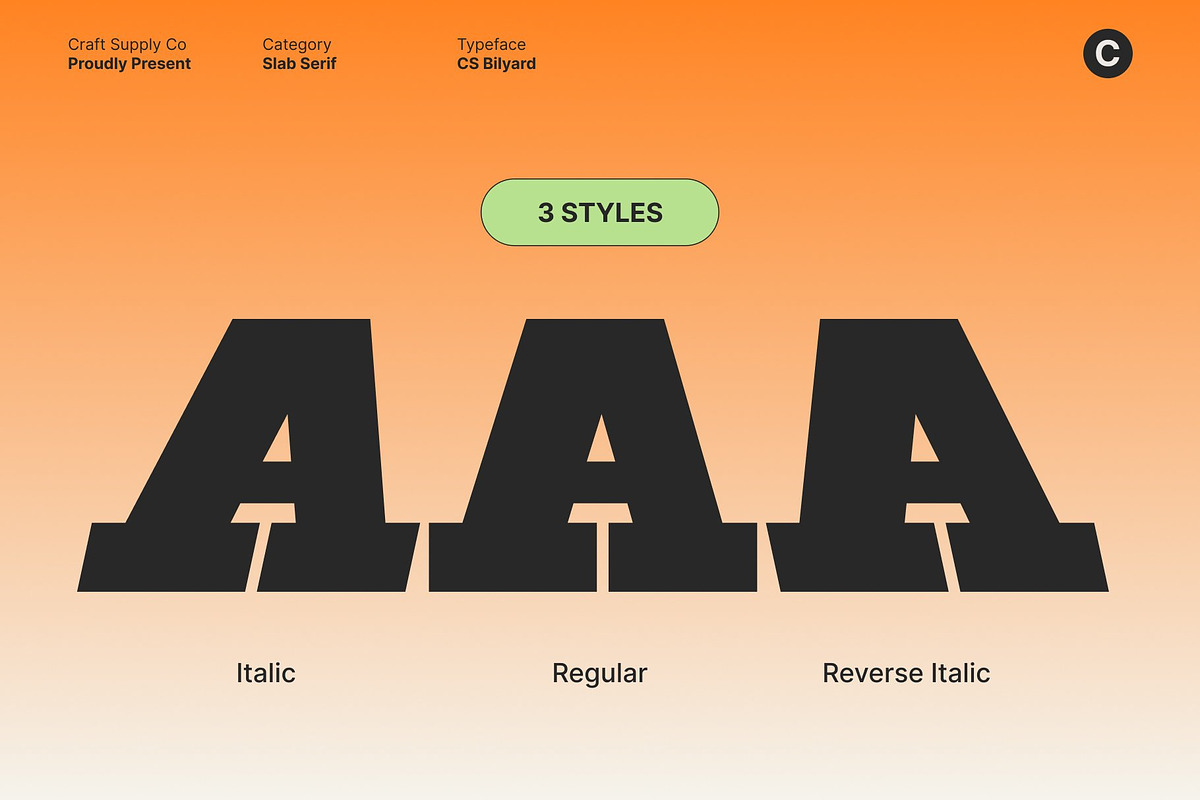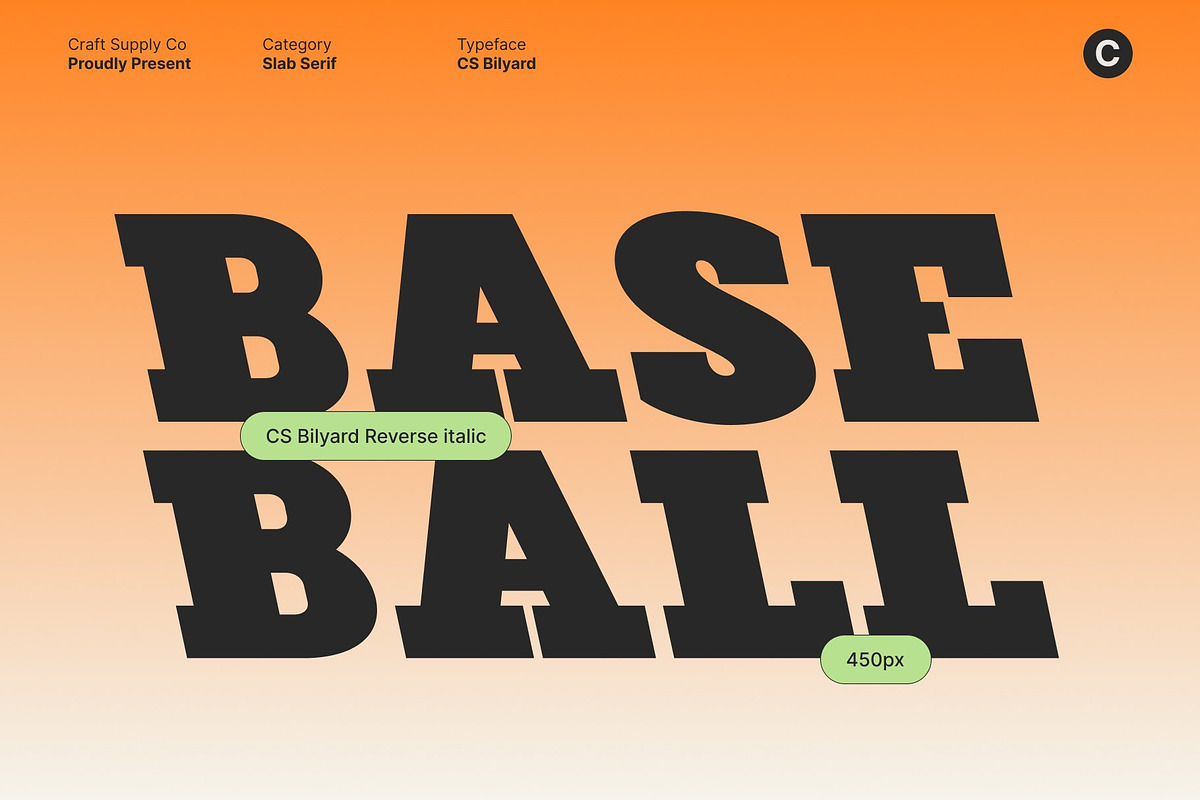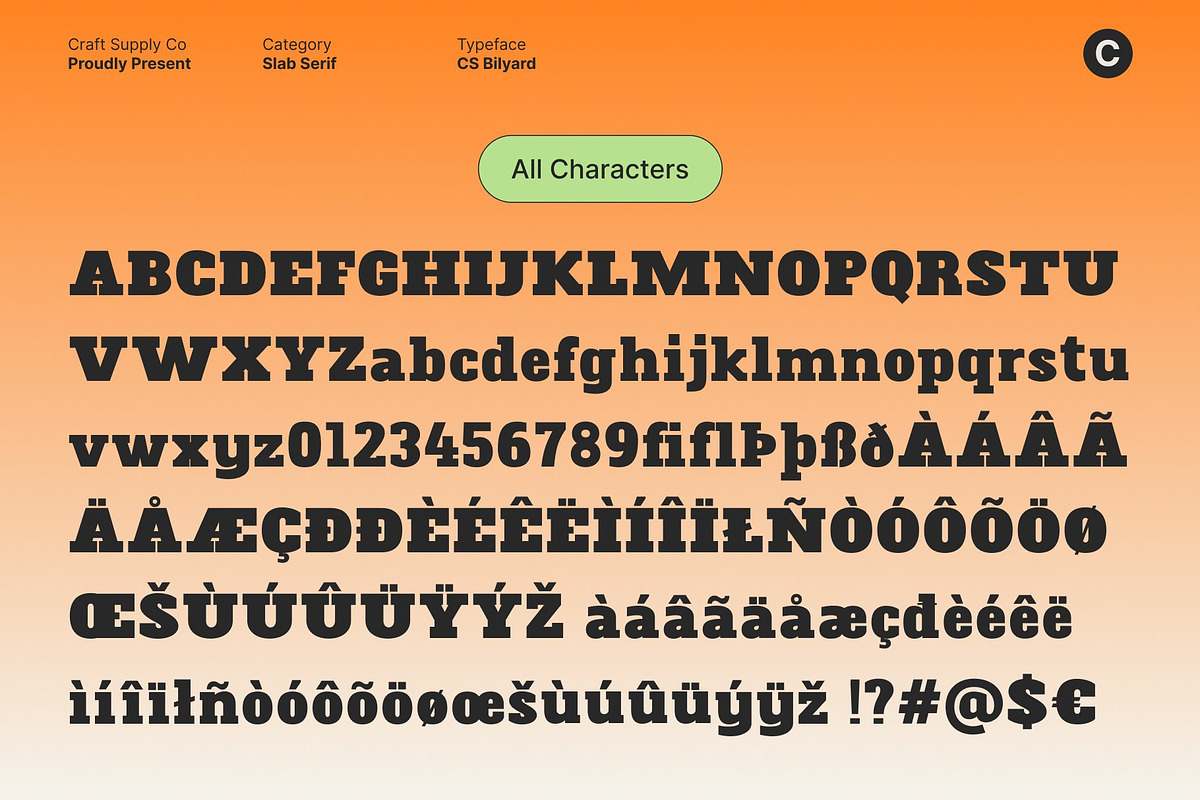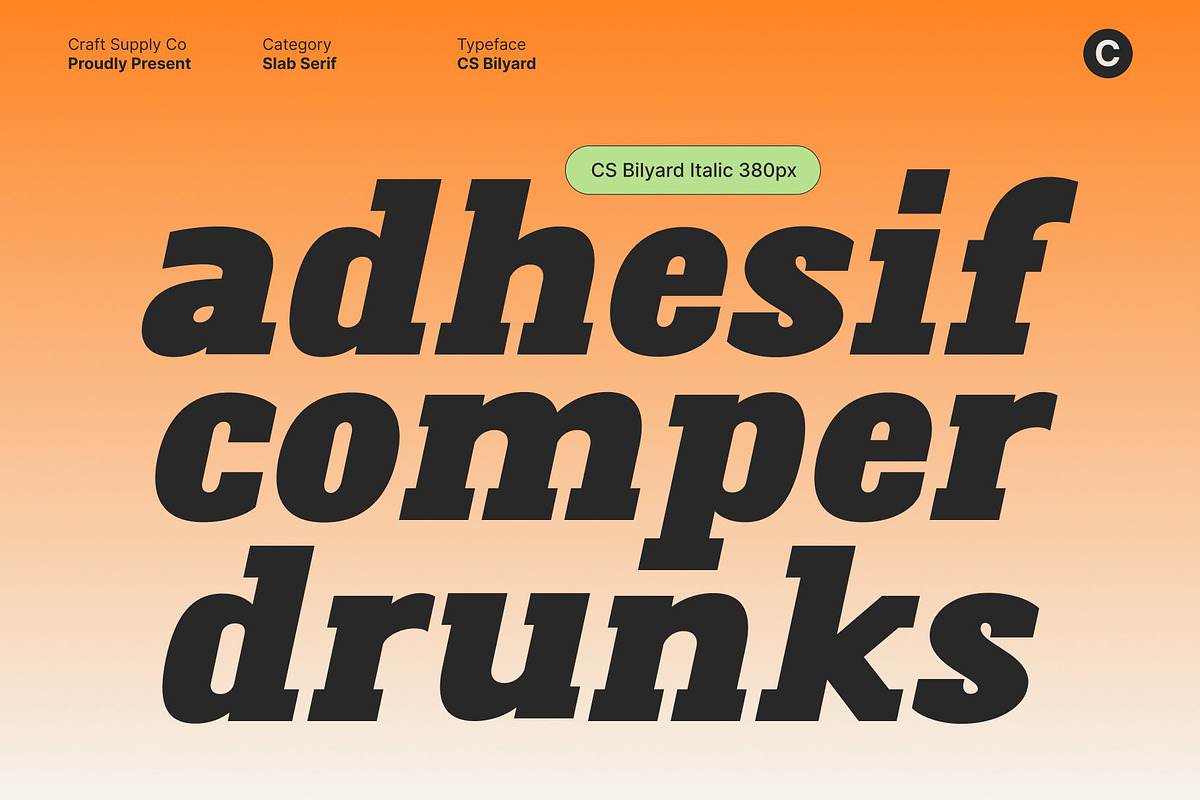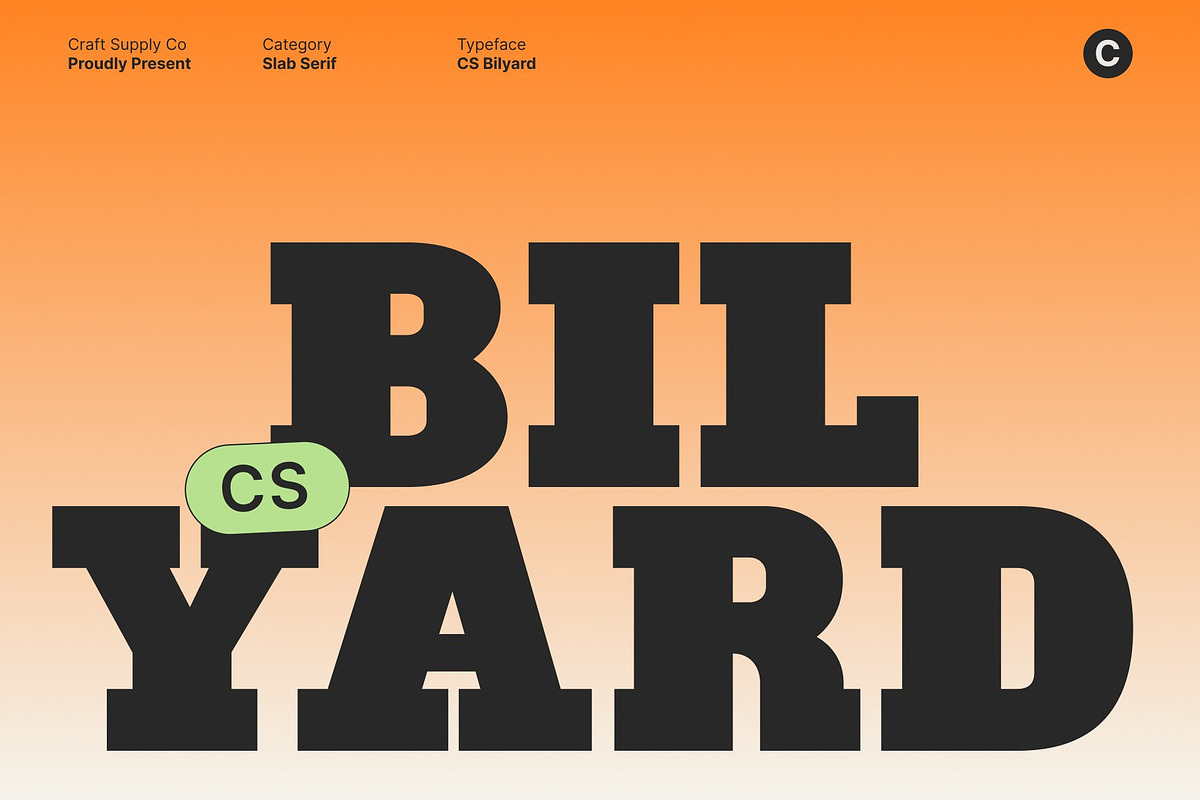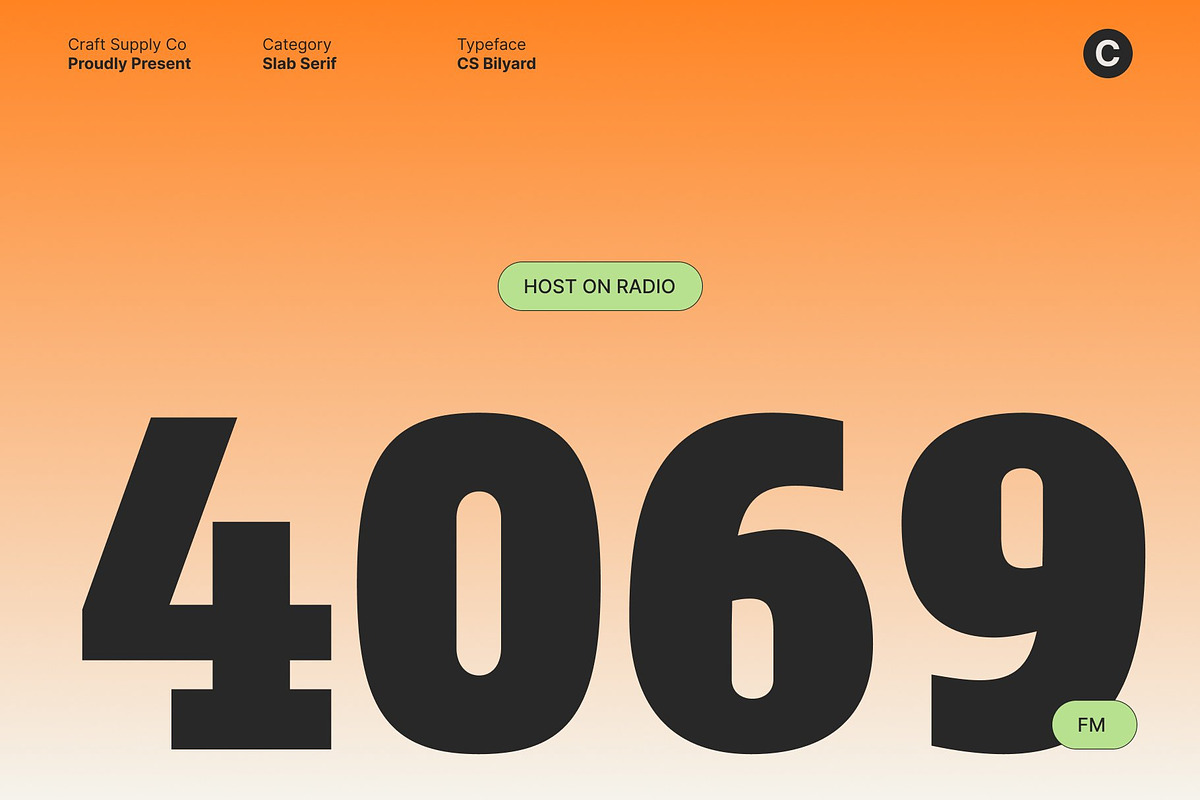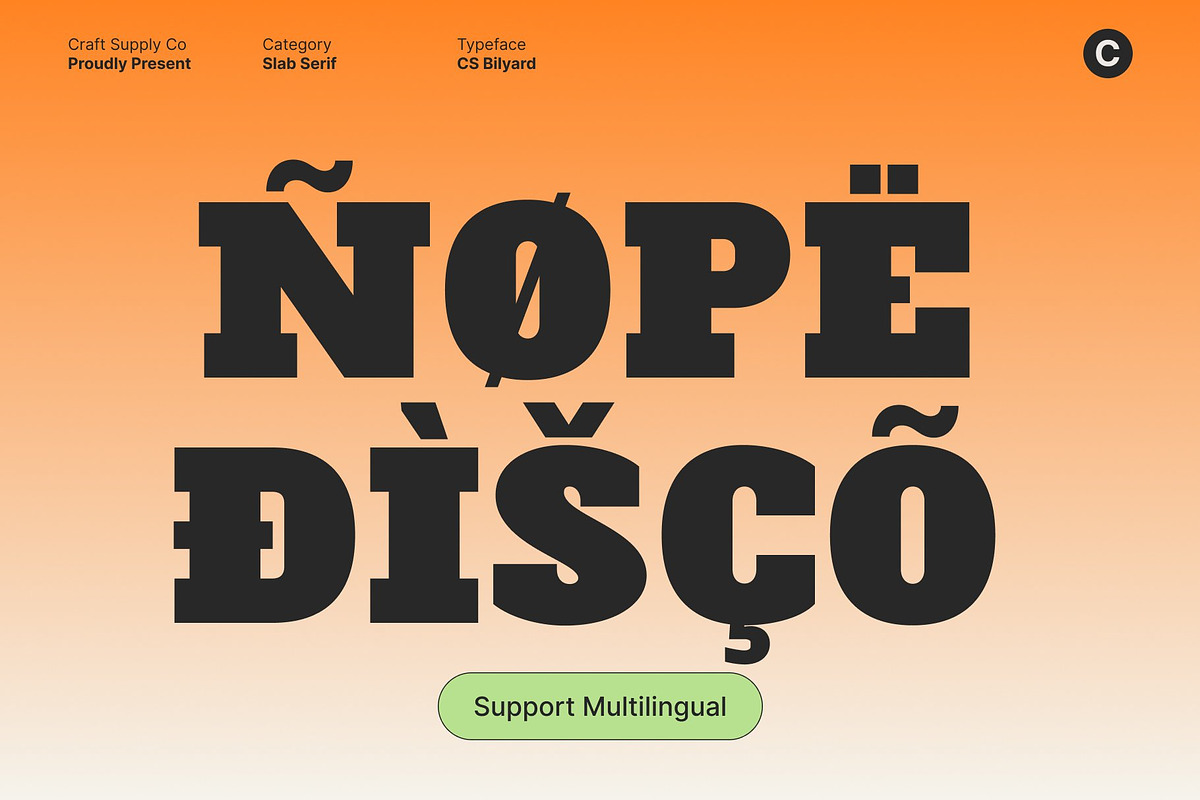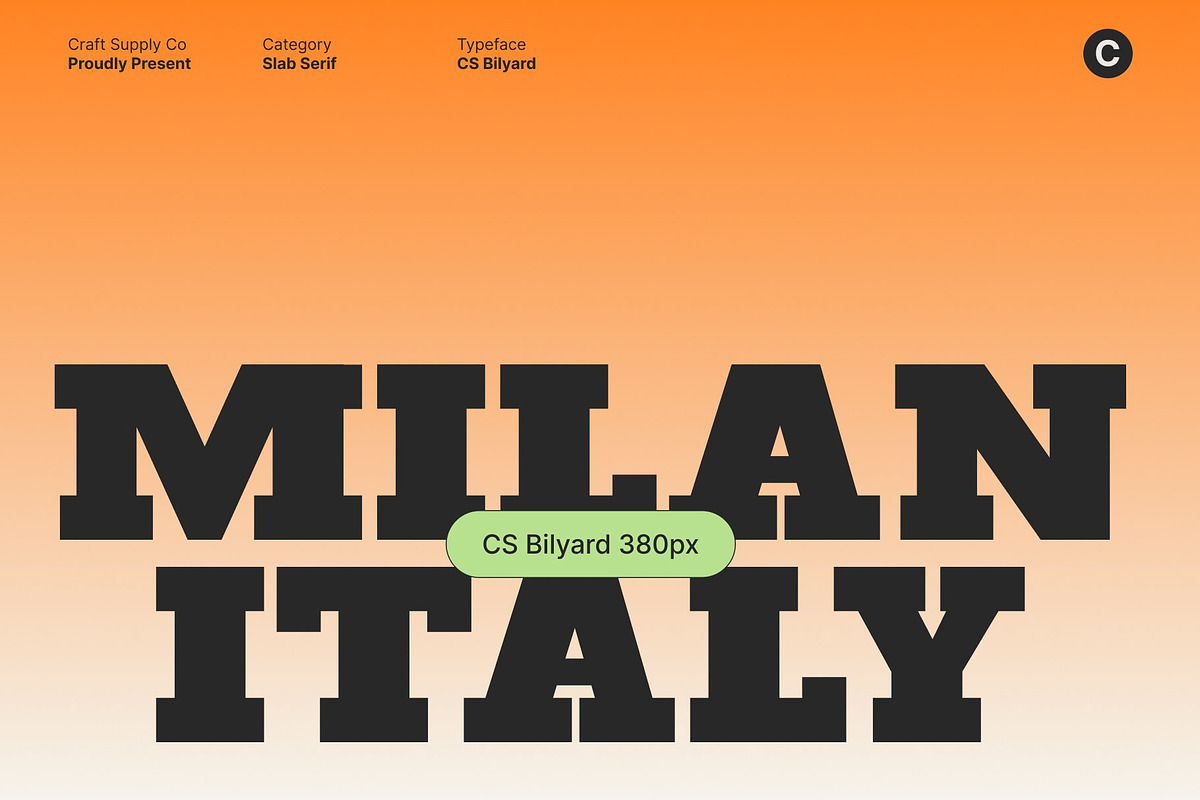
CS Bilyard – Slab Serif Display
CS Bilyard – Slab Serif Font with Retro Strength Bold Slab Serif with Retro Influence This is a robust slab serif typeface inspired by classic retro aesthetics. Its sturdy letterforms and distinctive slab serifs create a sense of confidence and heritage, making it perfect for designs that want to capture timeless strength with a modern touch. This typeface brings together the best of traditional typography and contemporary design sensibility, resulting in a look that feels both nostalgic and fresh.
Strong Structure with Character Each letter in this font is carefully crafted with wide proportions and clean edges that convey authority and reliability. The bold structure enhances visibility, ensuring that your text commands attention in any layout.
Perfect for Branding and Display Designs This font thrives in large-scale applications from posters and packaging to branding identities. Its confident tone and retro inspiration make it ideal for brands that want to project trust, authenticity, and bold personality. Whether used for headlines, signage, or editorial titles, this font ensures your message stands out with clarity and impact.
Versatile for Modern Creativity While deeply rooted in classic design traditions, this font’s clean execution makes it perfectly suited for modern creative projects. It adapts effortlessly across various themes from nostalgic campaigns to contemporary branding proving that classic inspiration can still drive modern innovation.
- CS Bilyard Regular
- CS Bilyard Italic
- CS Bilyard Reverse Italic